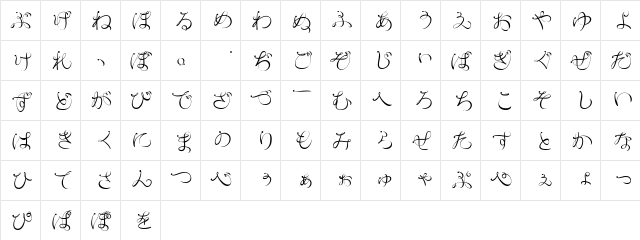
RyusenHir Regular Font Preview
RyusenHir Regular
RyusenHir Regular Font Details
Design Context for RyusenHir Typeface
RyusenHir is a composed and adaptable typeface that performs quietly and consistently across a wide range of design contexts.